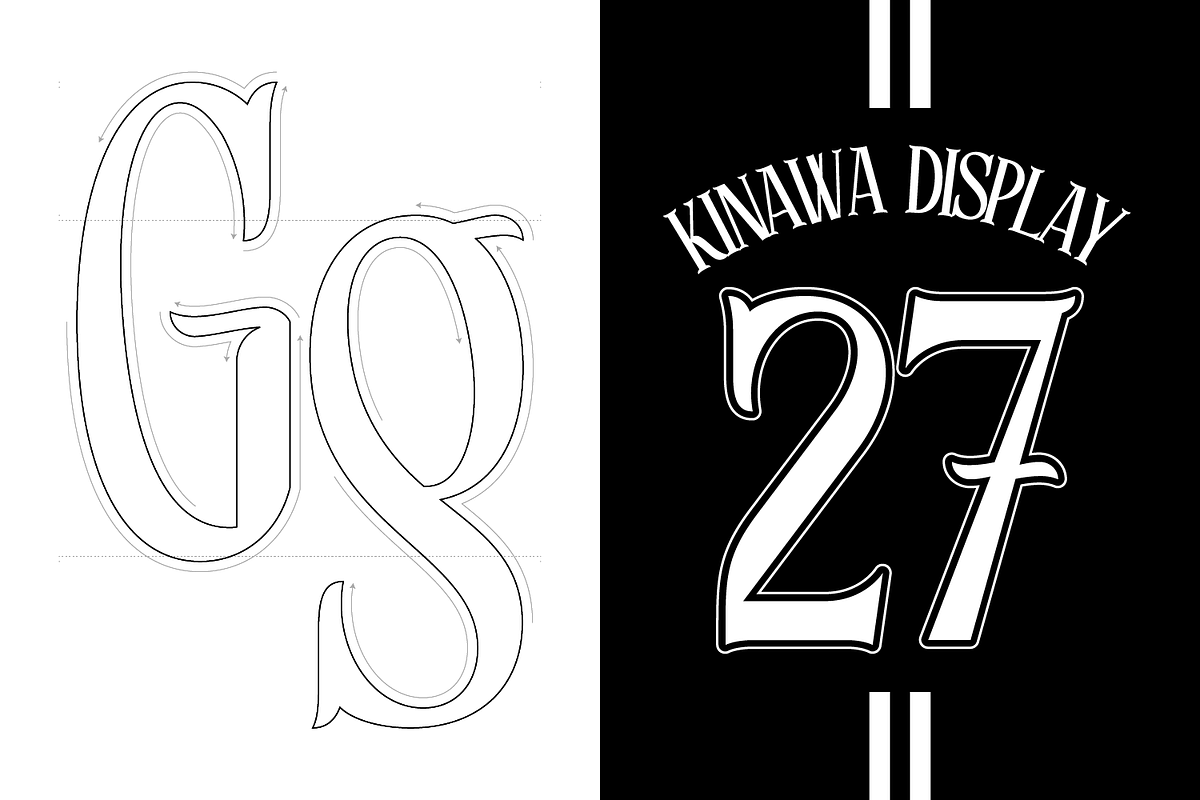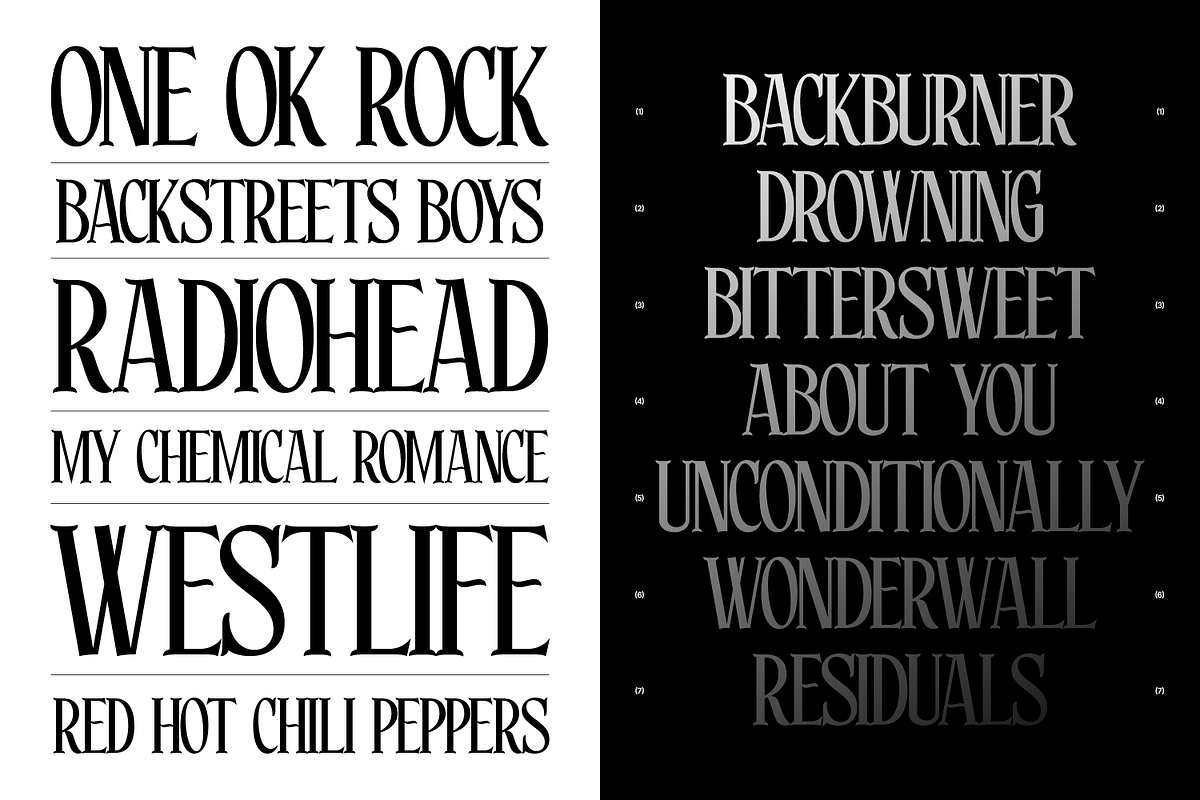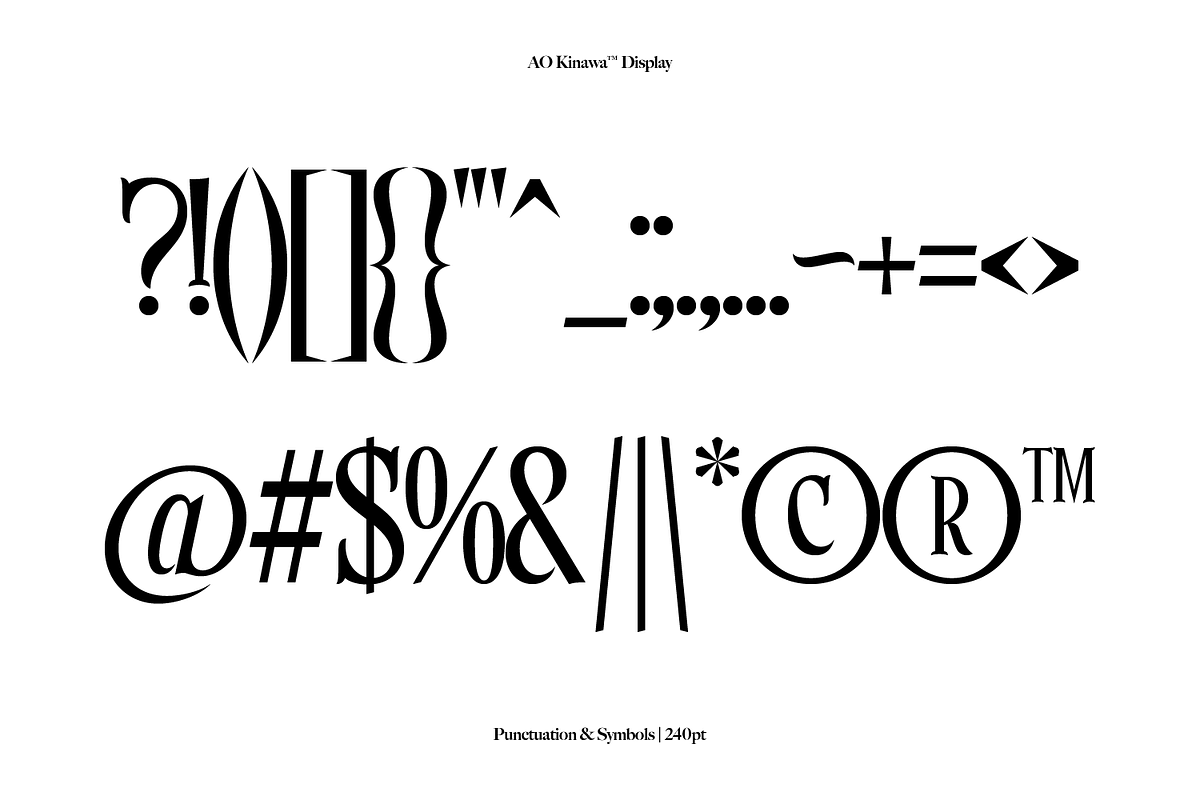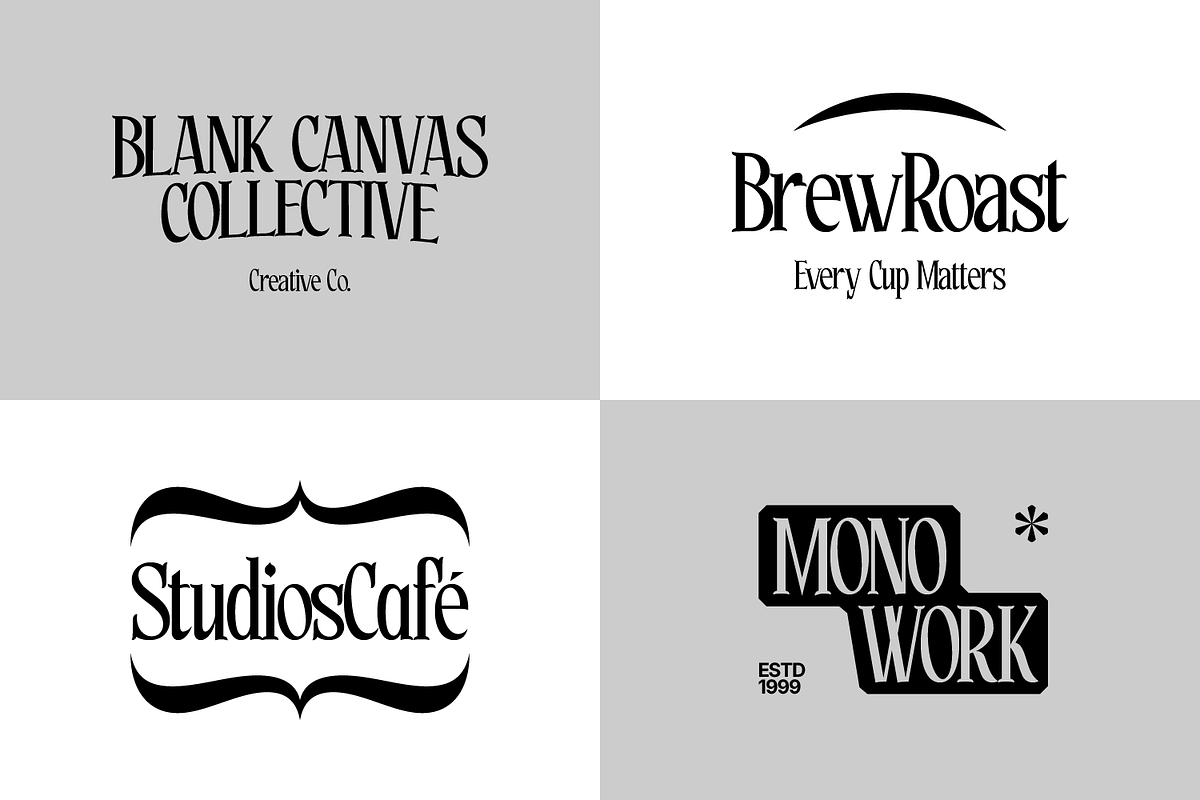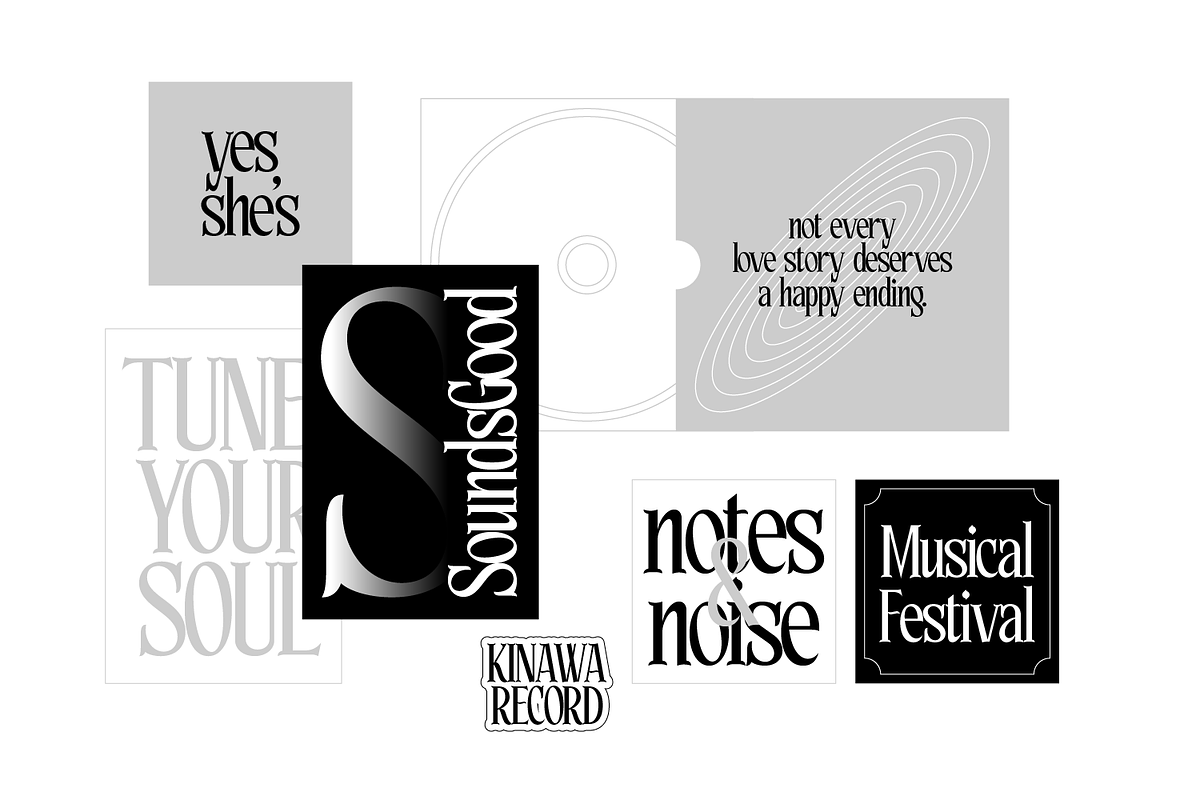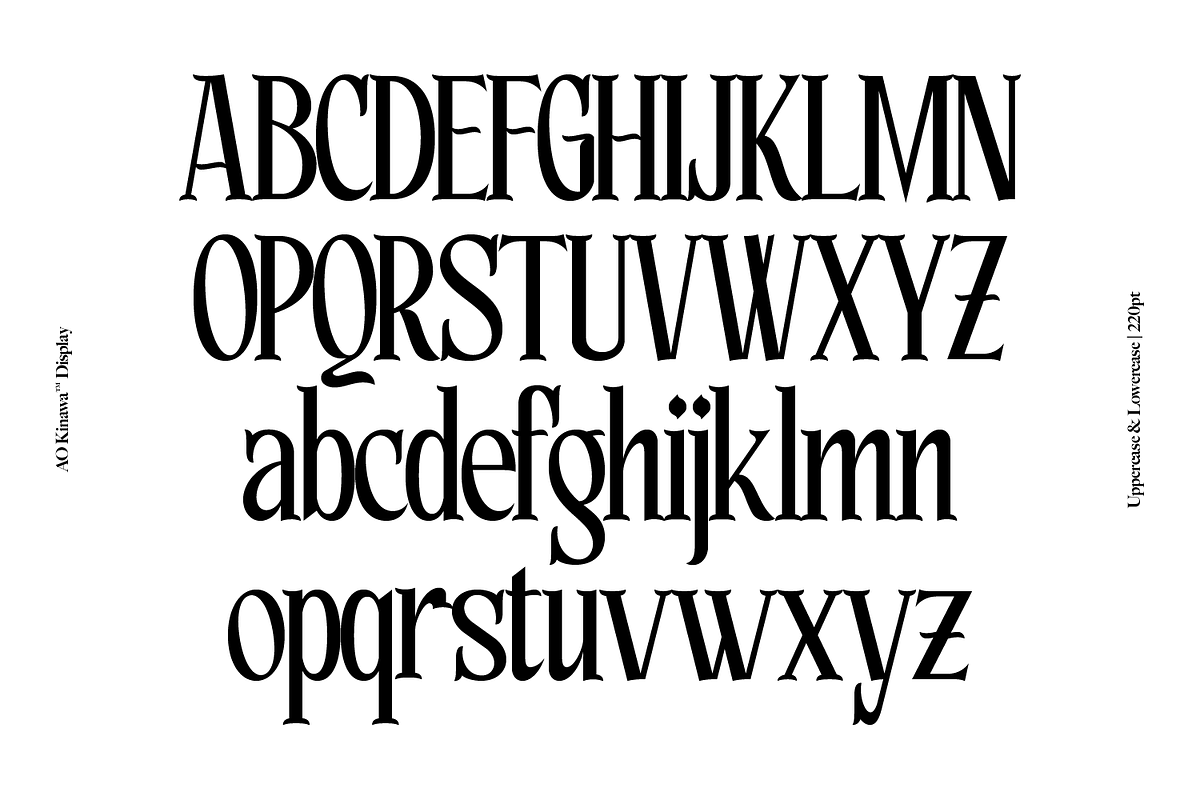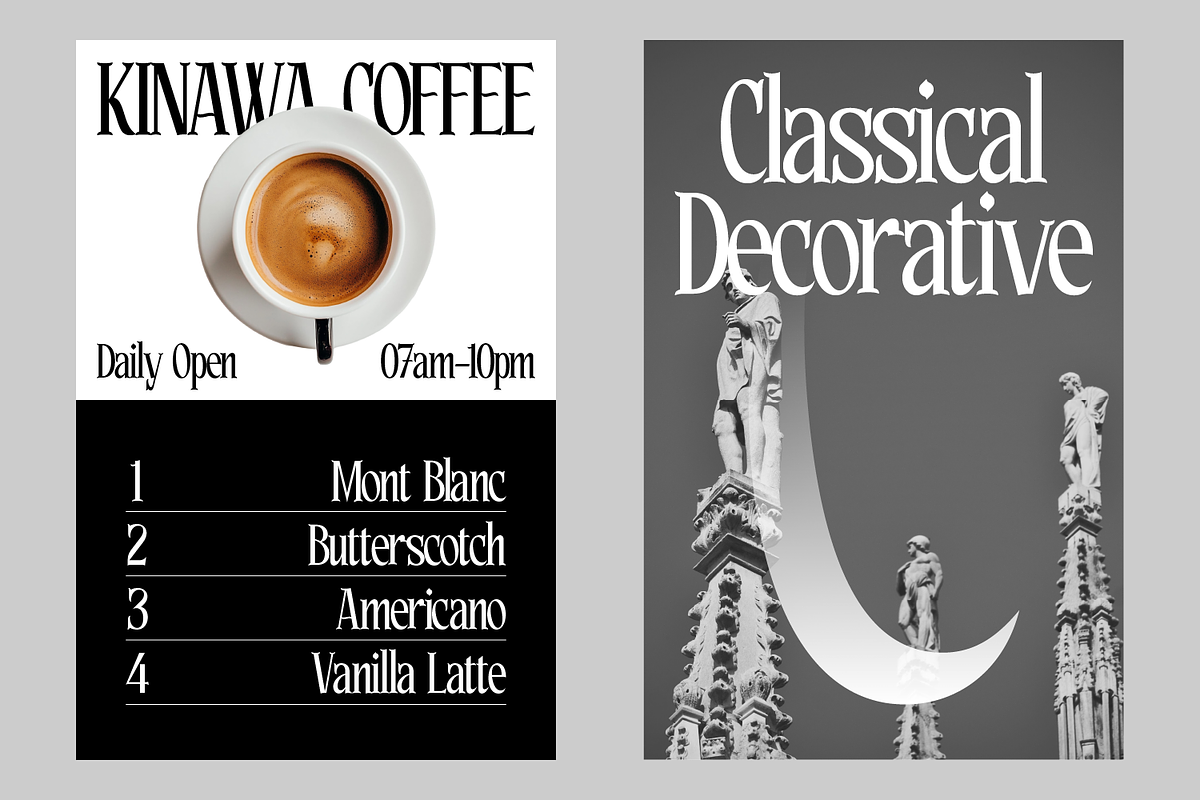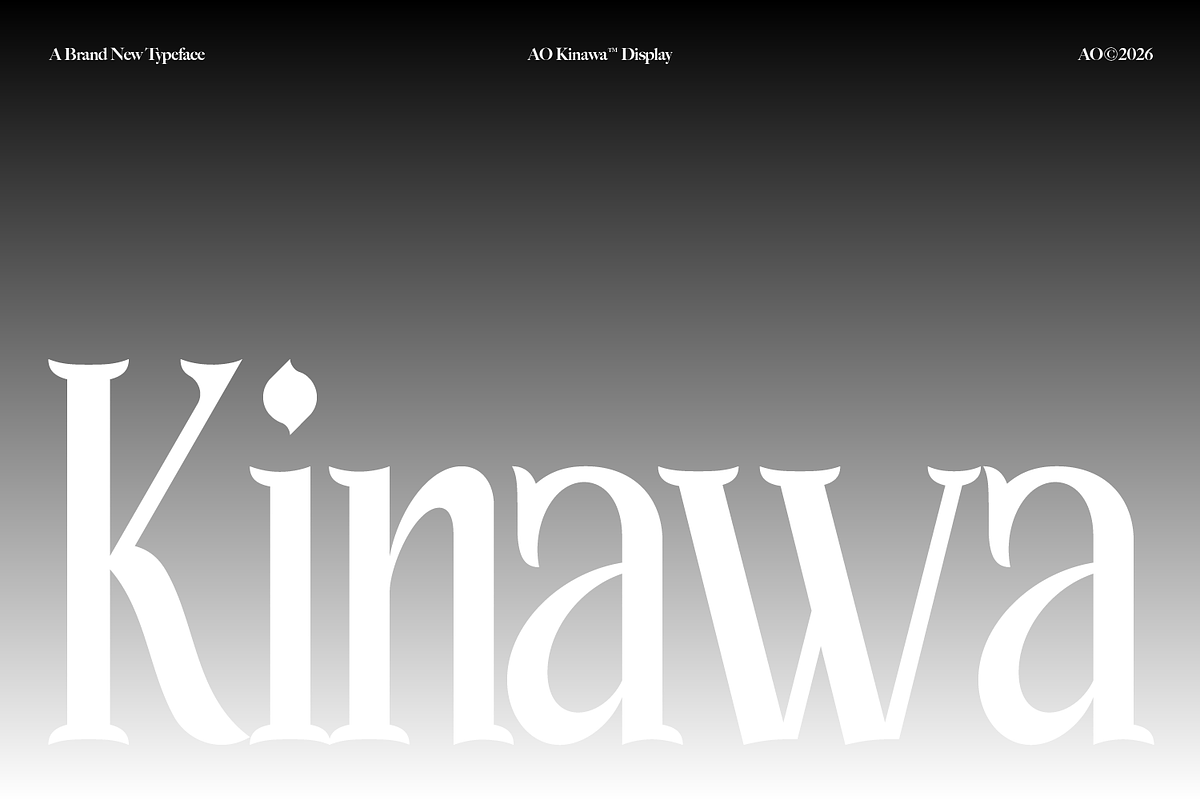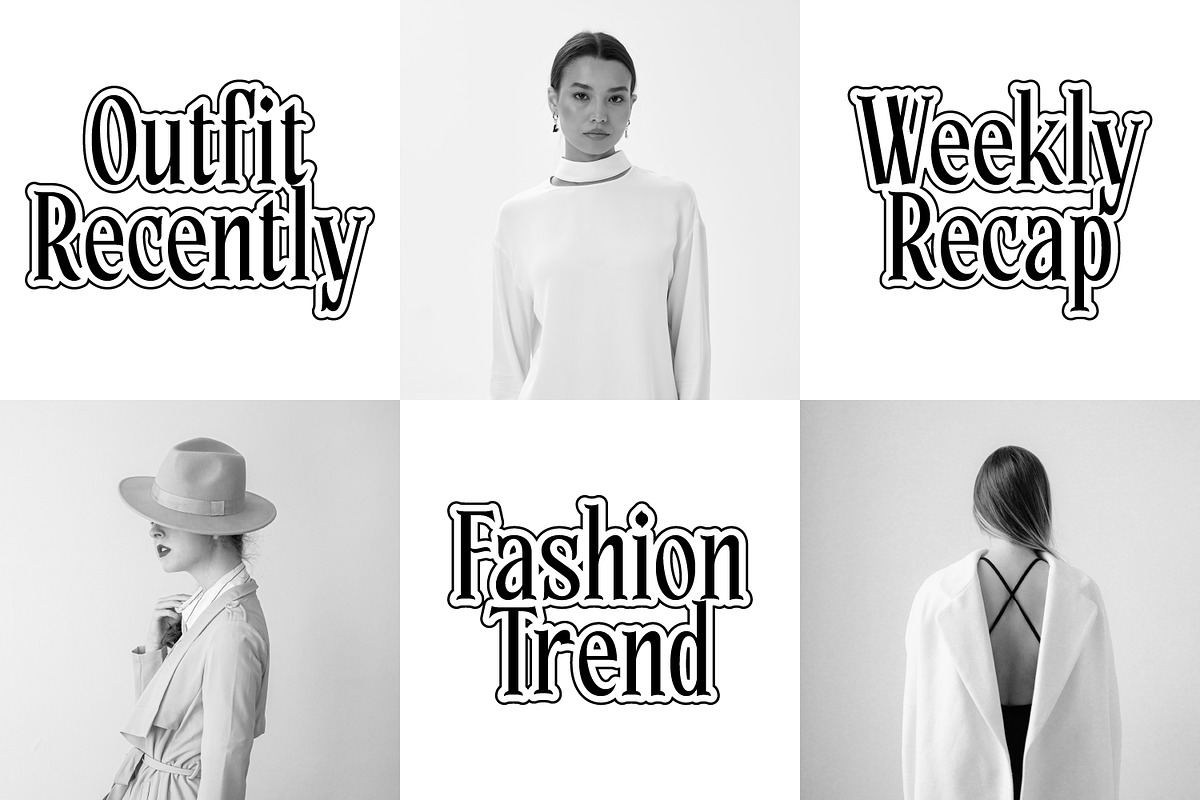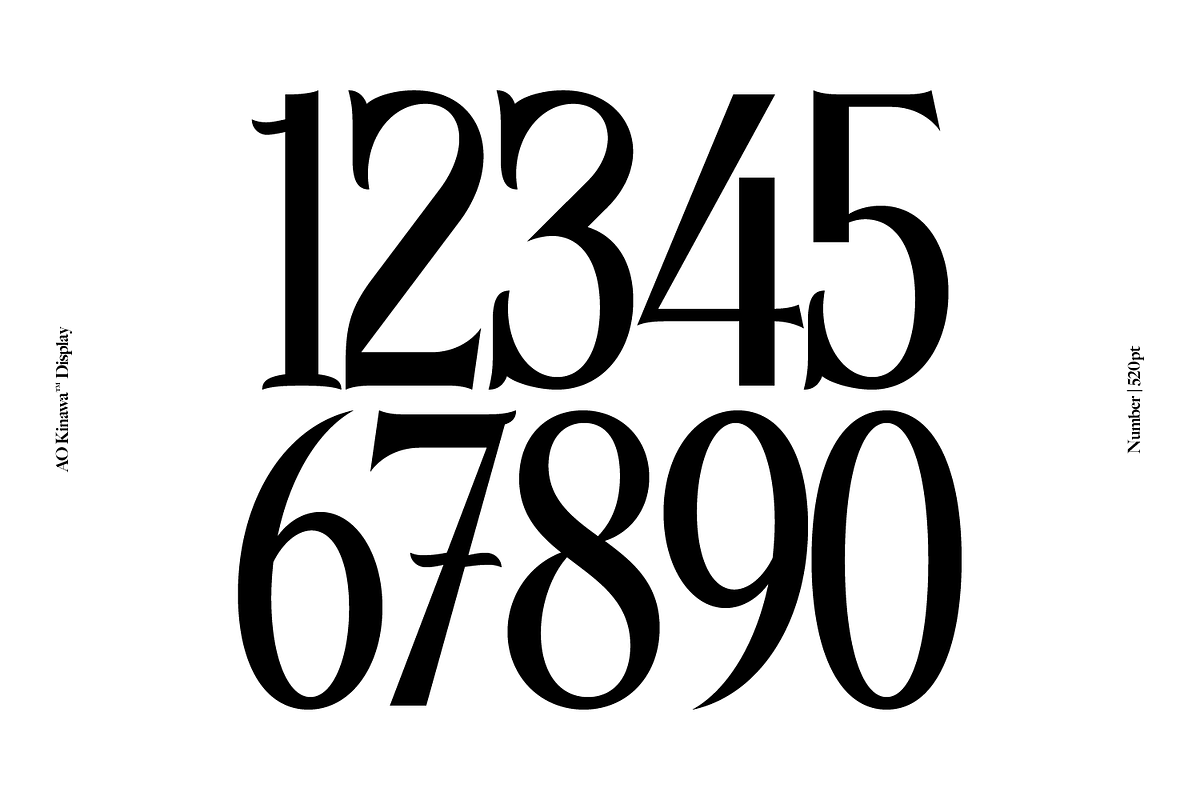
AO Kinawa - Elegant Display Serif
Kinawa is an elegant and expressive display serif designed to bring a sophisticated, fashion-forward character to your typography. With its striking high-contrast strokes, refined proportions, and distinctive letterforms, Kinawa creates a luxurious visual presence while maintaining a graceful and contemporary feel.
Inspired by the aesthetics of high-fashion editorials, luxury branding, and modern typography, Kinawa works beautifully when typography needs to become the main visual statement. Its dramatic shapes and elegant curves make it especially suitable for headlines, logos, fashion identities, magazine covers, posters, packaging, invitations, and other premium design projects.
Whether used in bold uppercase titles or elegant lowercase compositions, Kinawa adds a distinctive editorial character that feels timeless yet modern.
Kinawa is perfect for:
Fashion & luxury branding
Editorial and magazine design
Logos and wordmarks
Beauty & cosmetics
Posters and advertising
Packaging design
Wedding invitations
Headlines and display typography
Kinawa is made for designers who want their typography to feel elegant, artistic, sophisticated, and impossible to ignore.